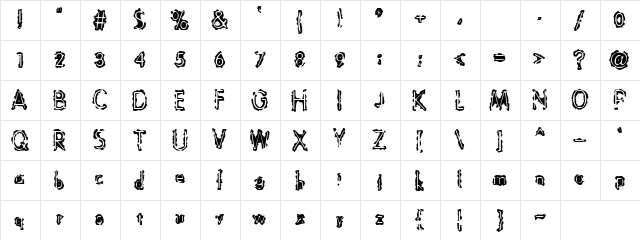
Chimpanzee Regular
Design Context for Chimpanzee Typeface
Chimpanzee is a composed and adaptable typeface that performs quietly and consistently across a wide range of design contexts.